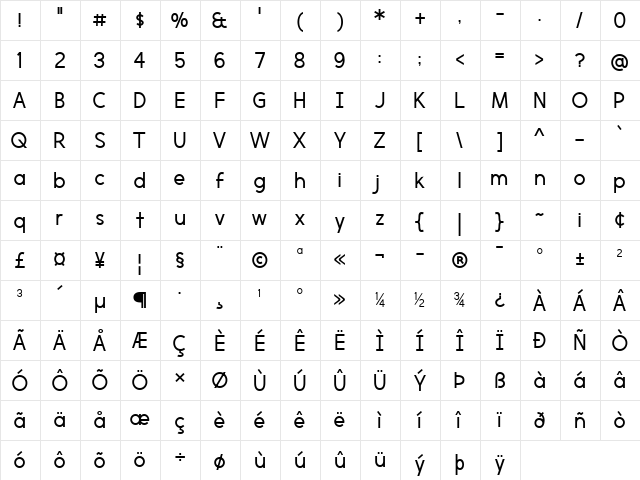
Morningtype Regular
| Foundry | Brittney Murphy |
Design Context for Morningtype Typeface
Morningtype is a composed and adaptable typeface that performs quietly and consistently across a wide range of design contexts.